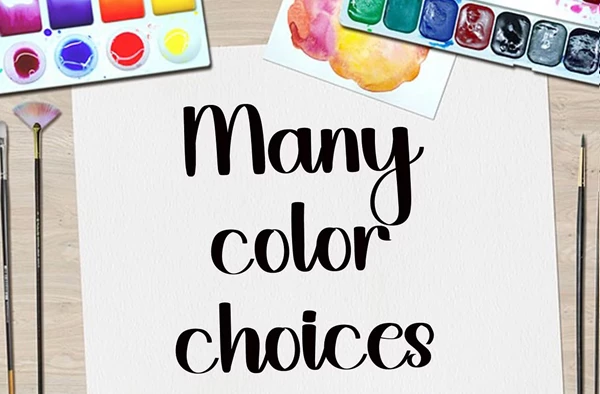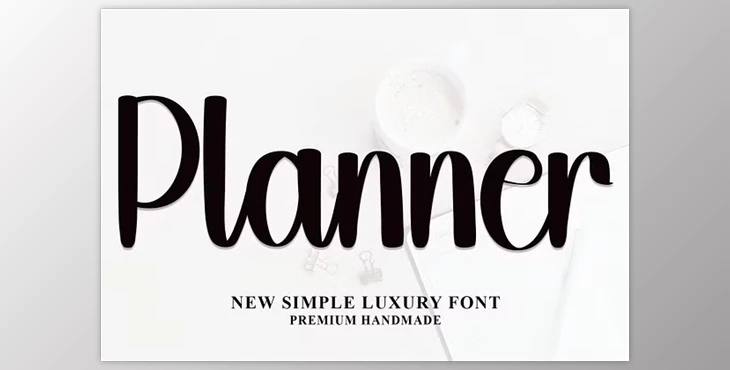
Planner - Handwritten Luxury Font: Introducing a font tailored to meet your business needs and elevate your brand's presence. With its elegant and expensive style, this font is designed to capture consumer attention and drive rapid growth. Perfect for a variety of applications including flyers, wedding invitations, logos, banners, birthday cards, YouTube thumbnails, and more, it offers versatility and sophistication.
How can create a logo that captures consumers attention?
You can use "Planner - Handwritten Luxury Font."
This font exceeds international standards, ensuring that your designs stand out with characters of exceptional quality. Additionally, it is PUA encoded, granting easy access to all glyphs and swashes for seamless customization. With its smooth style, this font is suitable for a great range of applications, allowing you to create stunning visuals. Whether you're a business owner, designer, or content creator, this font empowers you to elevate your brand and attract attention with its timeless elegance and versatility.